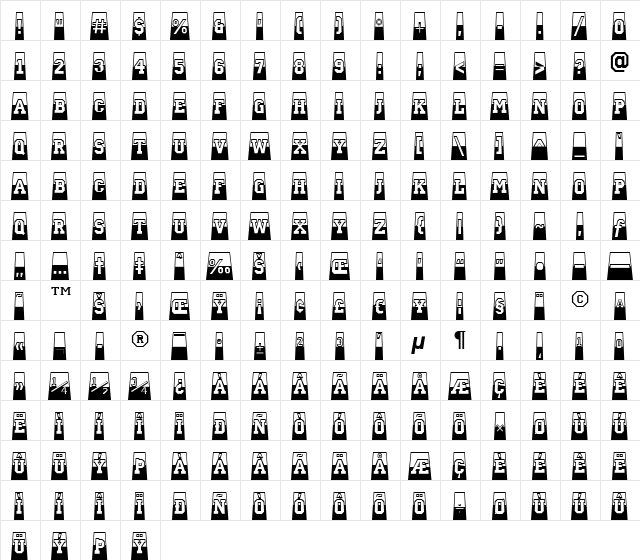
a_CampusCmB&WPrsp Bold
| Designer | W.Chufarofsky & M.Slutsker |
Design Context for a_CampusCmB&WPrsp Typeface
a_CampusCmB&WPrsp takes a measured approach to typography — its balanced proportions and neutral character make it a reliable workhorse for both digital and print work. The heavy weight commands attention and anchors typographic hierarchies.